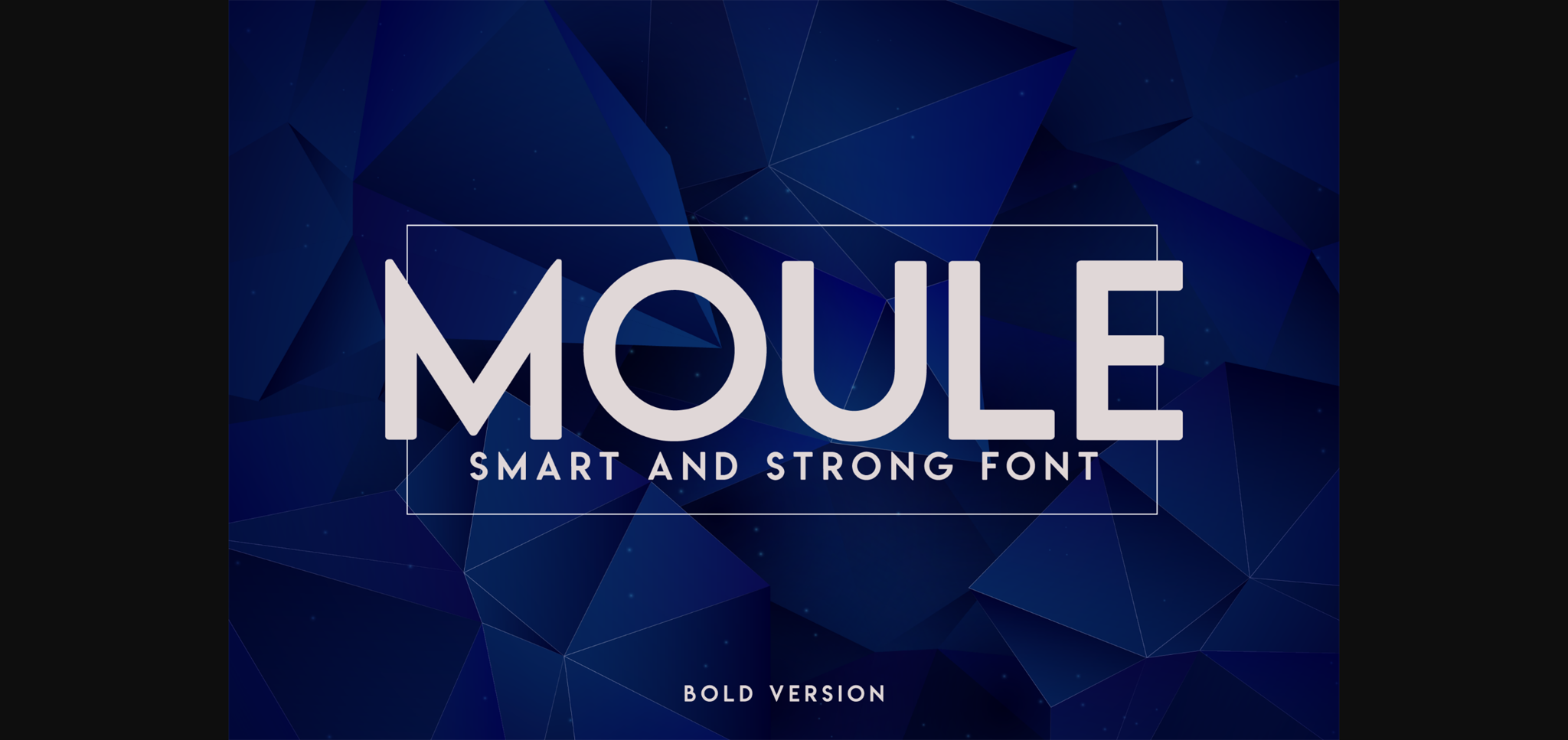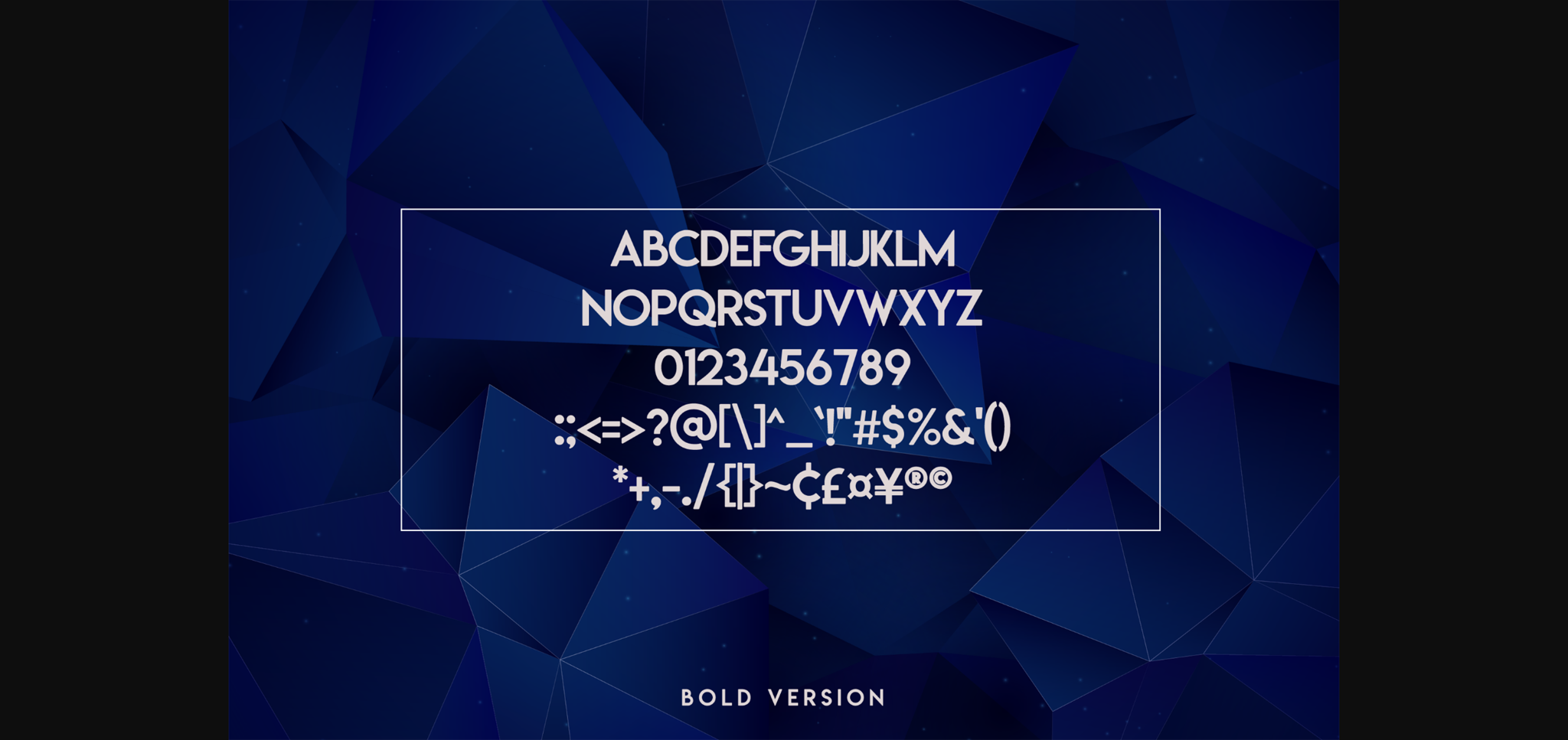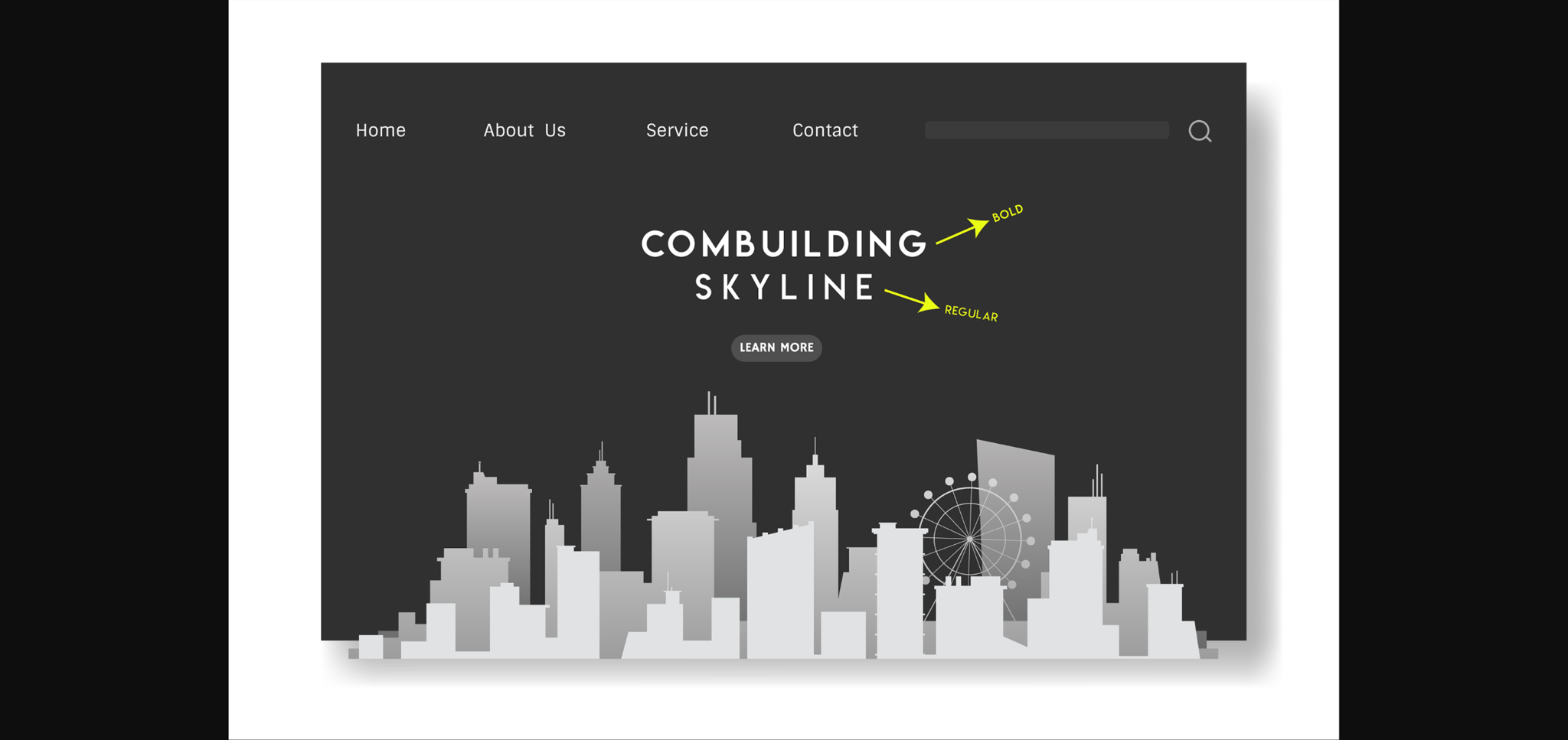
About Moule Bold Font
Moule Bold is a font that illustrates power and intelligence in a wide variety of design projects. It’s suitable for logos, branding, landing pages, headlines, magazines, posters, and much more!